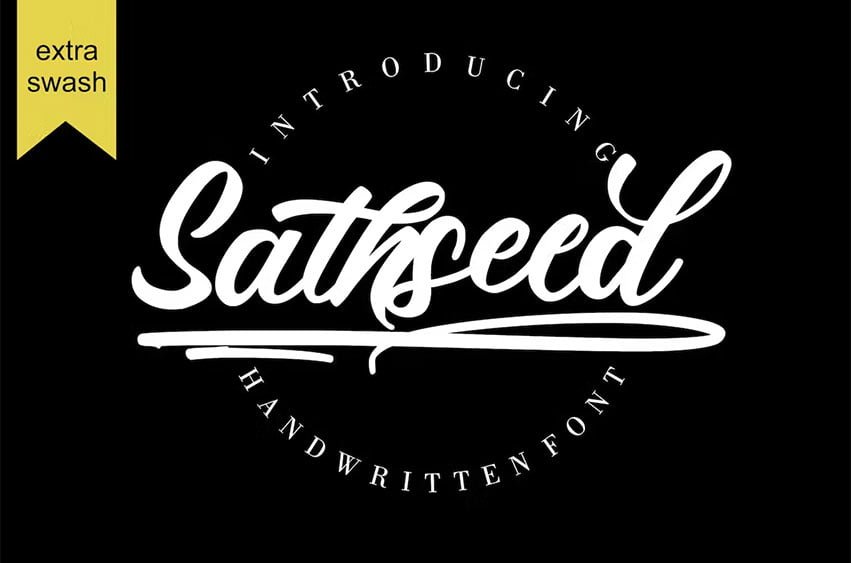
Sathseed Font is a fun, lively, handwritten brush script created with the utmost care, love, and attention to detail. It’s ideal for logos, titles, product packaging, merchandise, quotes… Try it for yourself in the preview section – what you see is what you get! To achieve an authentic handwritten feel, Sathseed comes with a full set of lowercase substitutions and ligatures to play with, giving you lots of variety. If you use software that supports OpenType, they are included in the main font that will be active as you type. If not, I’ve also included Alternate and Ligature as separate fonts for you to use.
Sathseed Font Preview